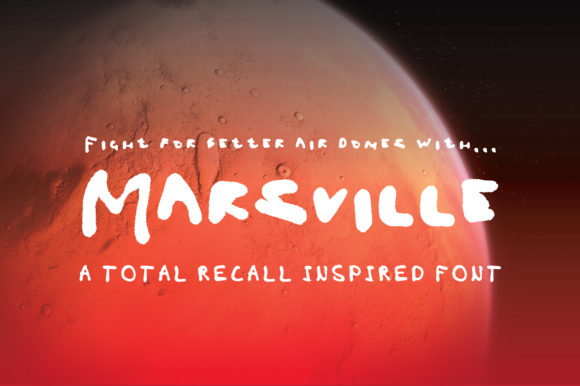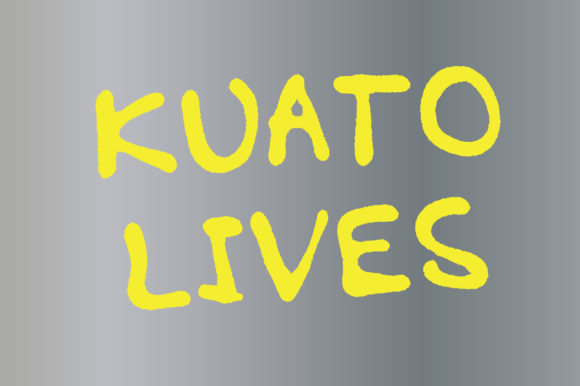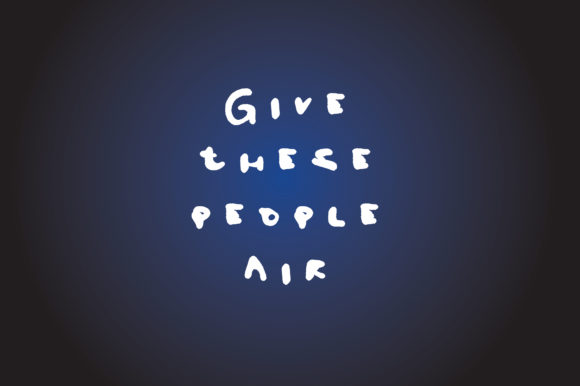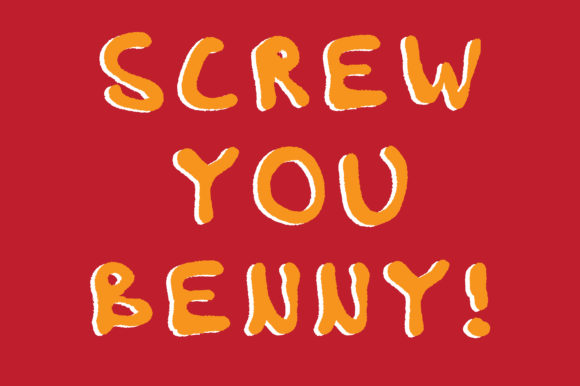
Marsvile Font
About Marsvile Font
Open your mind to the brand new graffiti based font inspired by the best sci-fi movie of the 90s ‘Total Recall’. Show your support for the workers of Mars and demand action be taken to improve living stands of all mutants and most importantly give these people air!